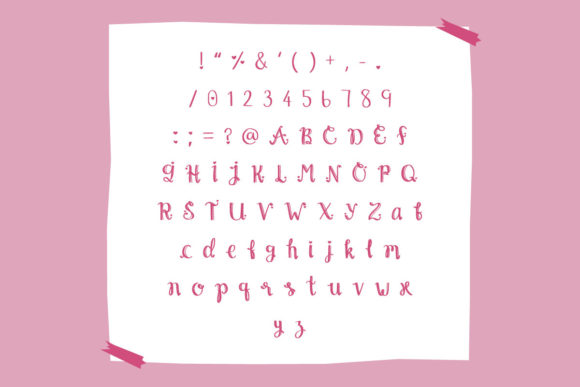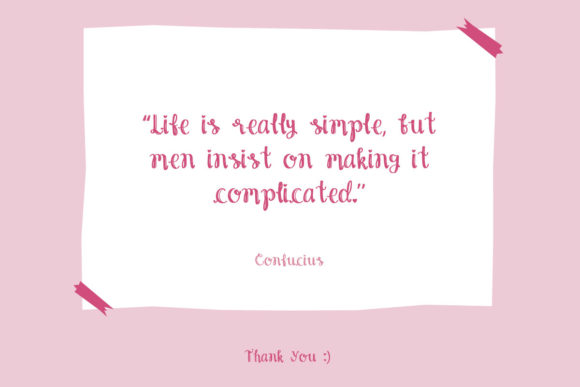
About Hand Writting Font
“Hand Writing” is an elegant and gracefully flowing script font that adds a touch of style to your typography. Its free-flowing nature exudes a sense of fluidity and charm that makes it a versatile choice for a wide range of creative projects. From blog posts to logos, branding to advertisements, invitations to greeting cards, planners to photo albums, and decorations to much more, this font can seamlessly adapt to various applications.
With its stylish appearance, “Hand Writing” captures attention and adds a unique flair to your designs. Its fluid strokes and balanced design elements make it suitable for both digital and print materials. Whether you’re seeking to convey a modern and sophisticated vibe or a more casual and personal feel, this font offers the flexibility to cater to your design preferences.
The versatility of “Hand Writing” allows it to complement various design aesthetics. From adding a touch of elegance to branding materials to infusing warmth into event invitations, the font can elevate your projects with its distinctive charm. Its adaptability makes it an excellent choice for both professional and personal design endeavors.
Incorporating “Hand Writing” into your creative work means embracing its stylish and free-flowing nature. Whether you’re designing for online or offline platforms, its versatility and timeless appeal ensure that your projects exude a sense of creativity and elegance.